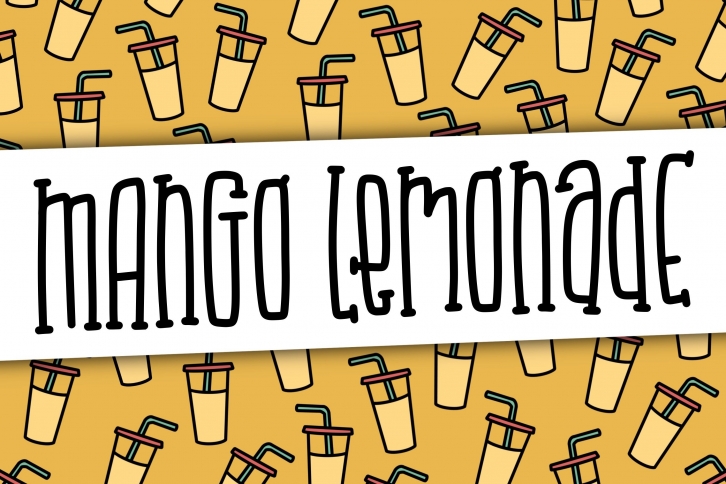
Introducing the Mango Lemonade Font! This unique hand-lettered font is perfect for your next crafty project. With its squared-off same-height style, it’s sure to add a touch of personality to your work.